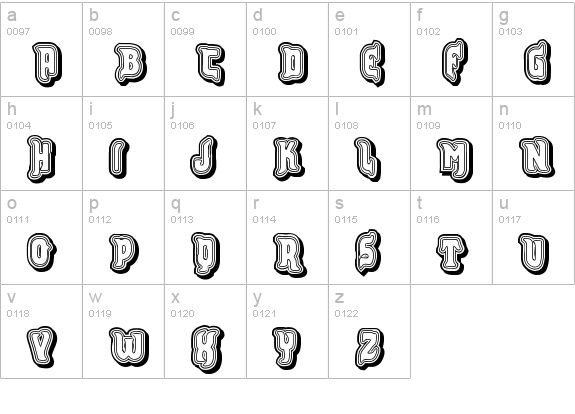
VTKS FURIOUS Font Details
VTKS FURIOUS font is a bold and dynamic display typeface that exudes power and energy. Its sharp edges and strong lines give it a fierce and intense appearance, making it perfect for making a statement in your designs. Whether you're looking to add a touch of aggression or a sense of urgency to your projects, VTKS FURIOUS font will definitely make an impact. The best part about VTKS FURIOUS font is that it is completely free to download at FontsMarket.com. You can easily add this striking typeface to your collection without any cost, allowing you to unleash its powerful presence in your creative works. So go ahead and grab VTKS FURIOUS font today to inject some intensity and vigor into your designs!